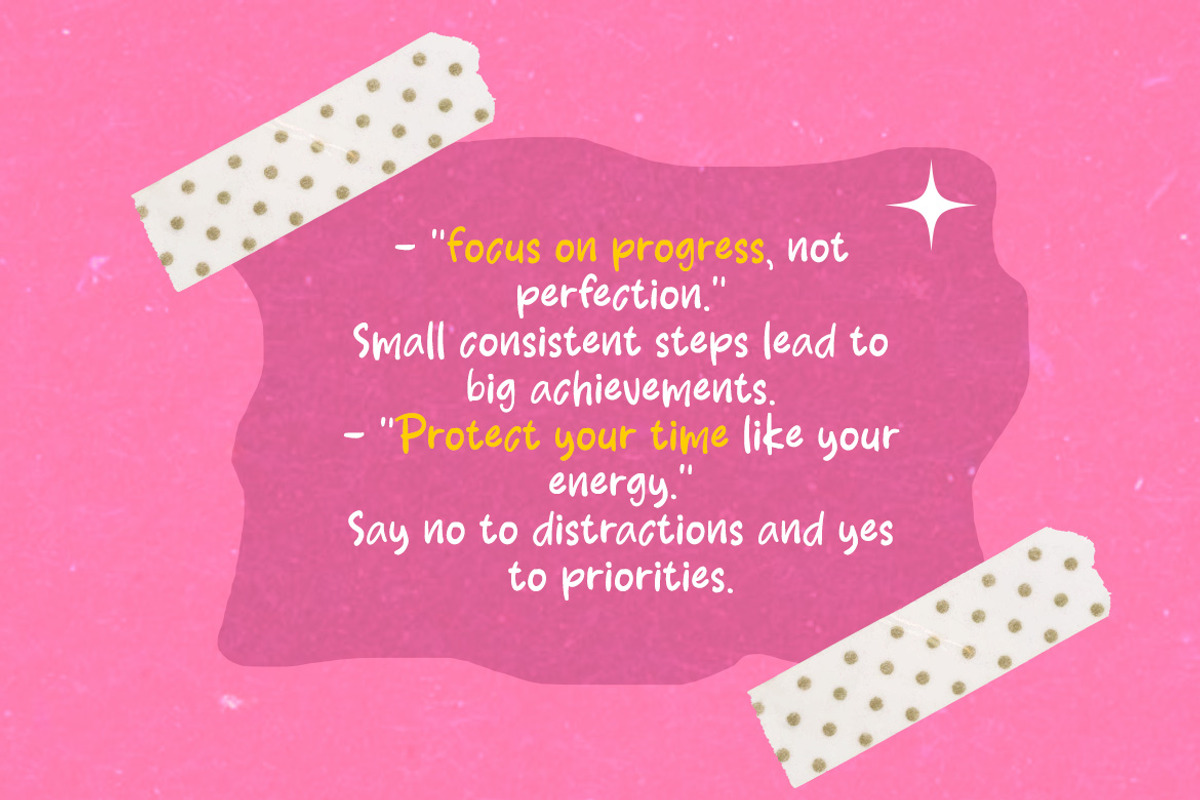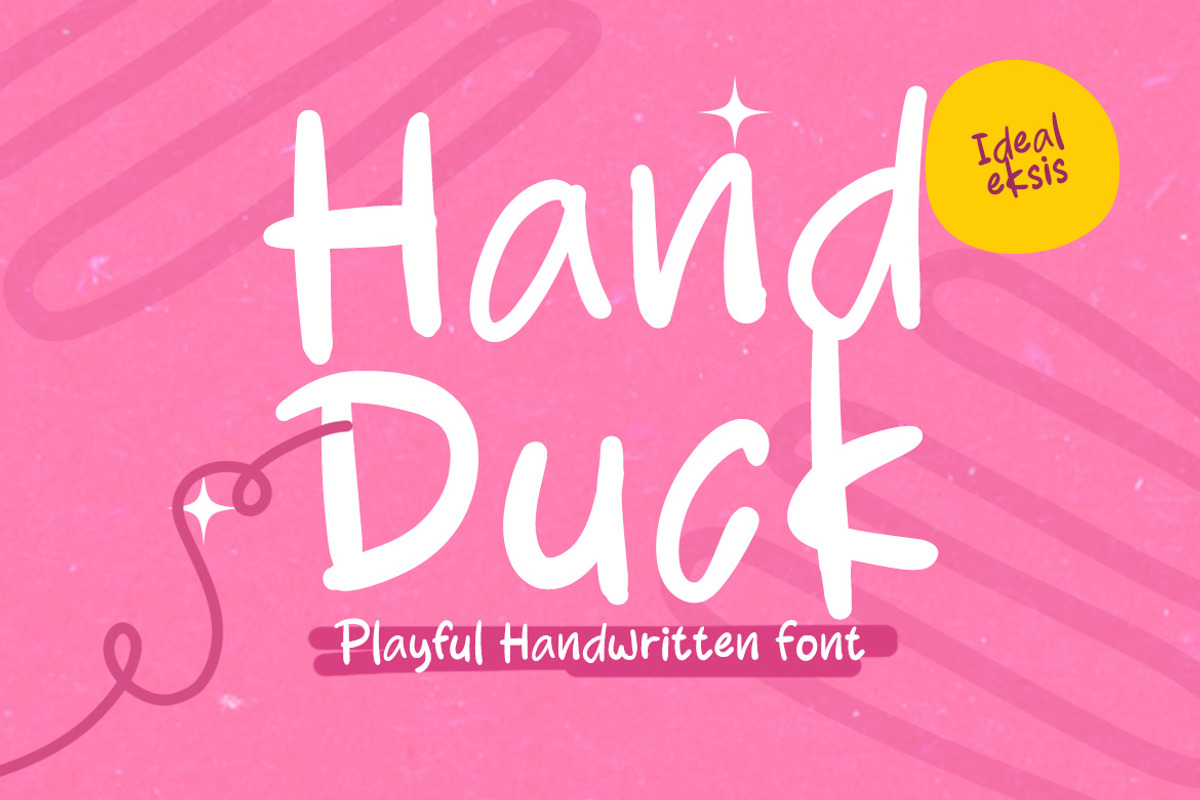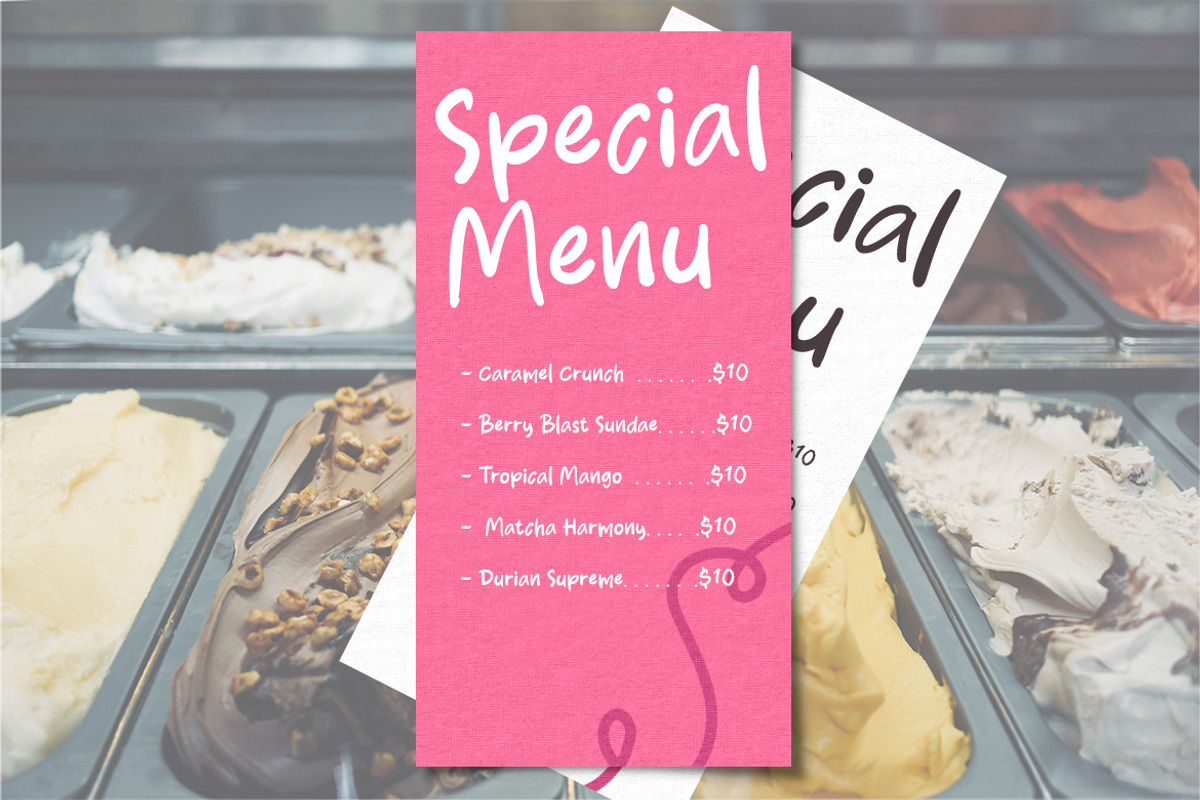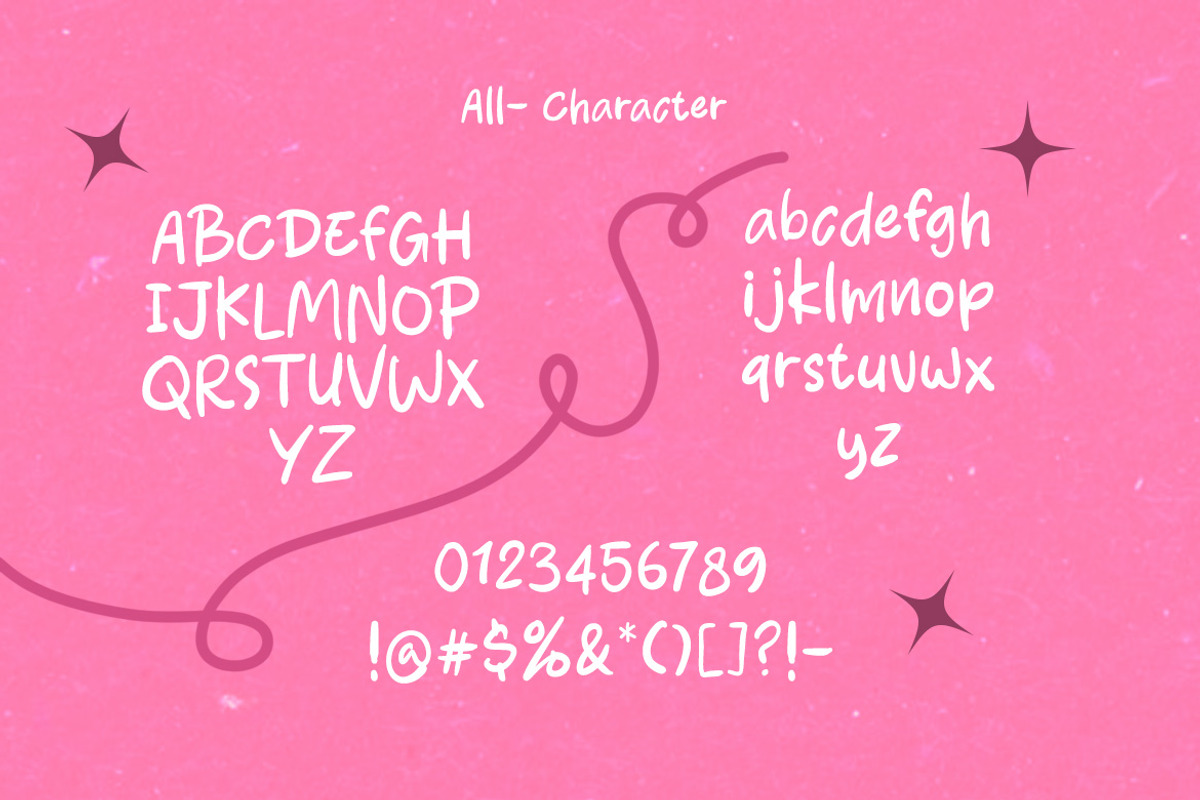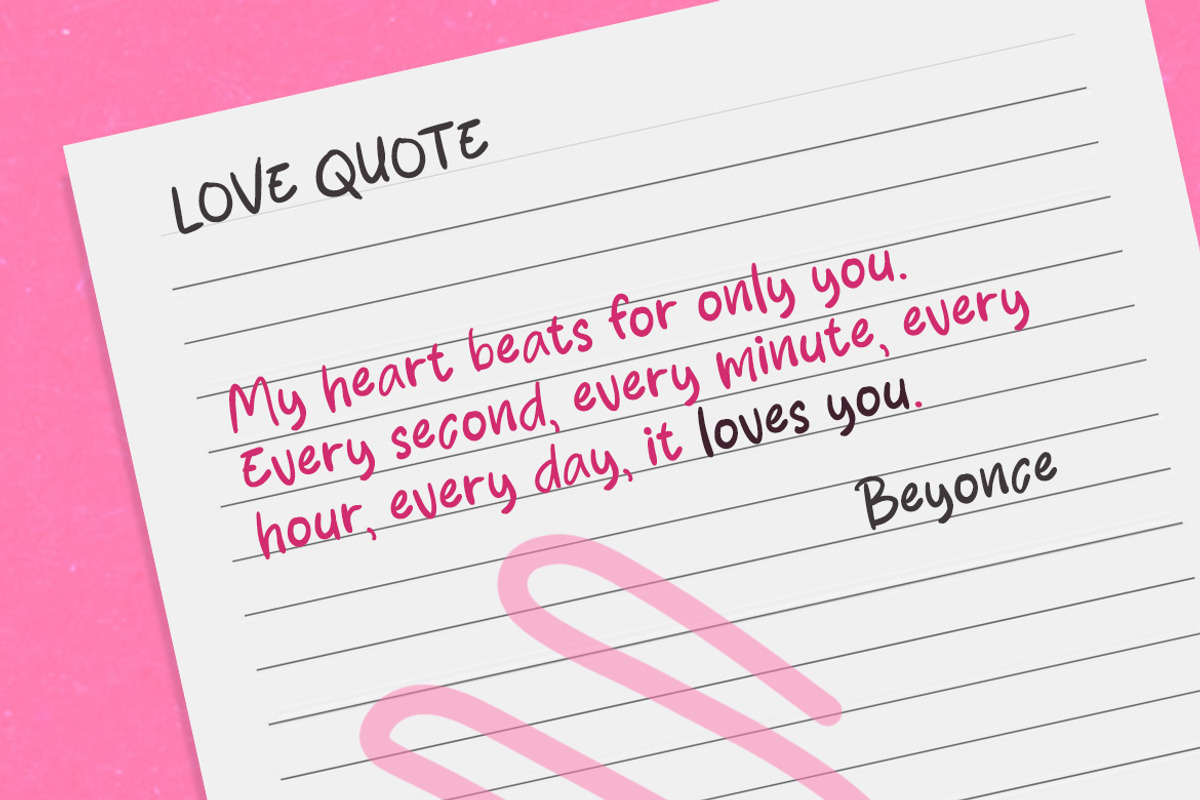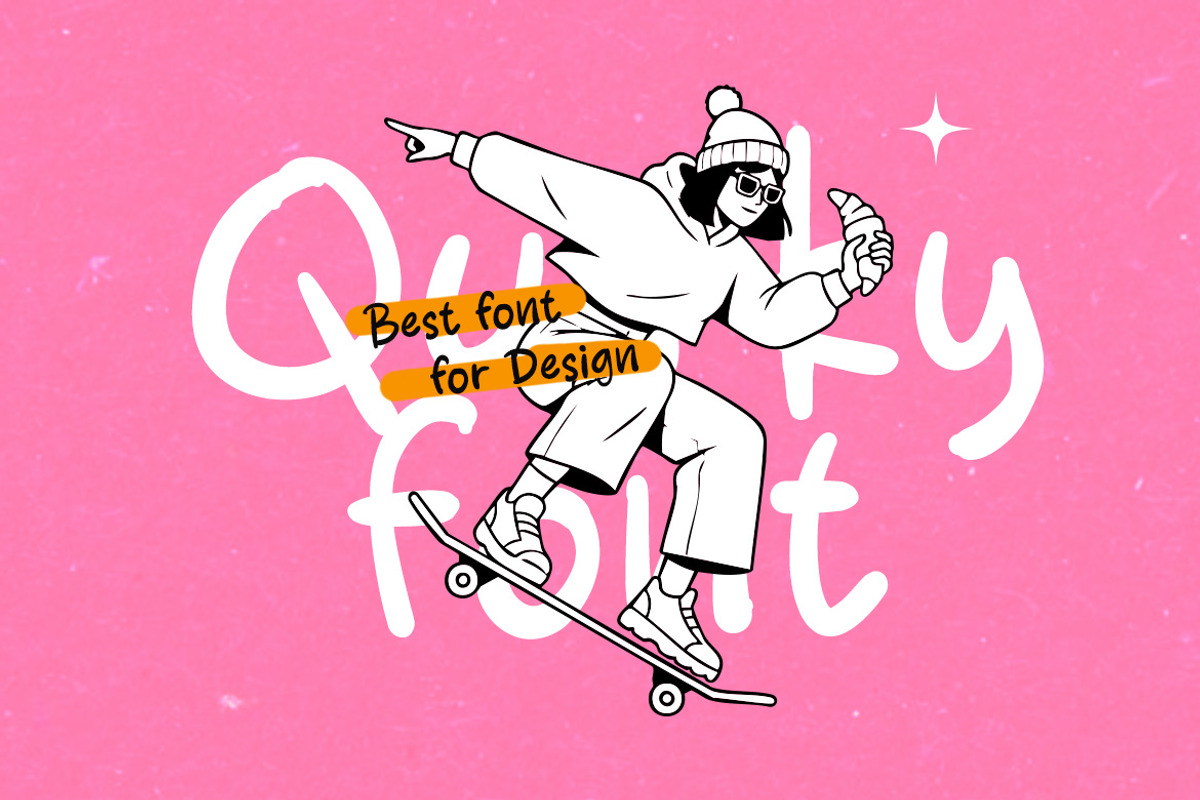
Hand Duck
This font features a cheerful and informal handwritten style, characterized by its rounded, slightly irregular letterforms and a medium to bold stroke weight. The characters exhibit a natural, brush-like quality with soft terminals, conveying a friendly and approachable aesthetic. Its playful baseline variations and unpolished edges enhance its authentic hand-drawn appeal. Ideal for designs targeting a youthful audience, it excels in branding for children's products, educational materials, social media graphics, greeting cards, and any project requiring a touch of whimsical charm. It's also suitable for merchandise and headlines where a lighthearted and engaging tone is desired.